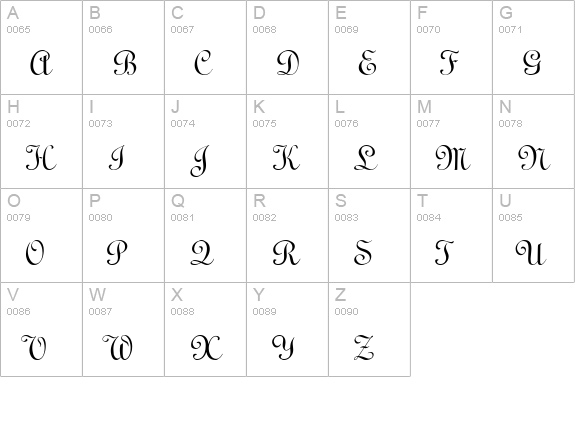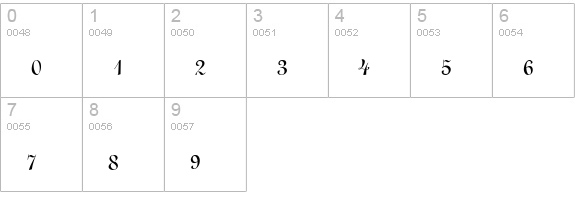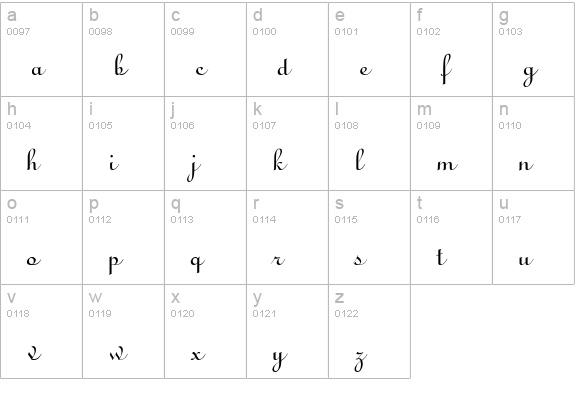
Lucy Normal Font Details
Lucy Normal is the standard, neutral variant in the Lucy typeface family \xE2\x80\x94 well suited to general body text, paragraphs, and standard typographic work.
Lucy Normal font is a versatile and modern typeface that strikes the perfect balance between elegance and readability. With its clean lines and subtle curves, Lucy Normal is ideal for a wide range of design projects, from branding to editorial design. This font exudes a sense of sophistication and professionalism, making it a great choice for both digital and print applications. One of the best things about Lucy Normal font is that it is available for free download at FontsMarket.com. This means you can easily access and use this stunning font in your projects without any cost. Whether you're a professional designer or a hobbyist looking to elevate your creations, Lucy Normal font is a fantastic addition to your font library. Download it today and start creating beautiful designs with this elegant and timeless typeface.